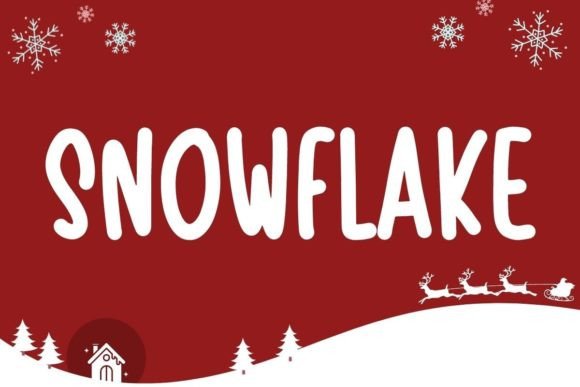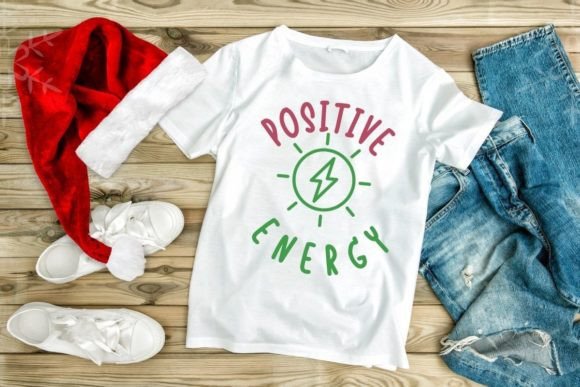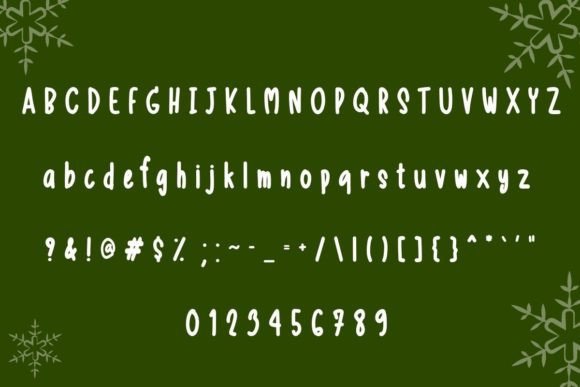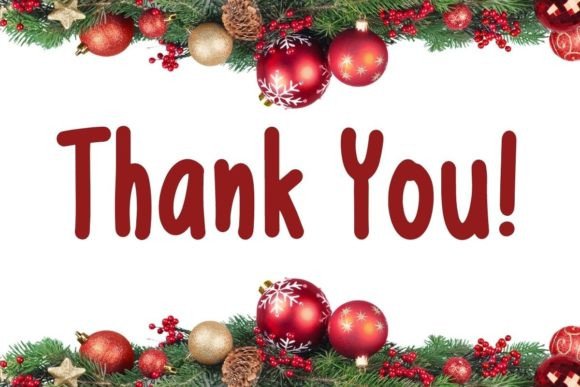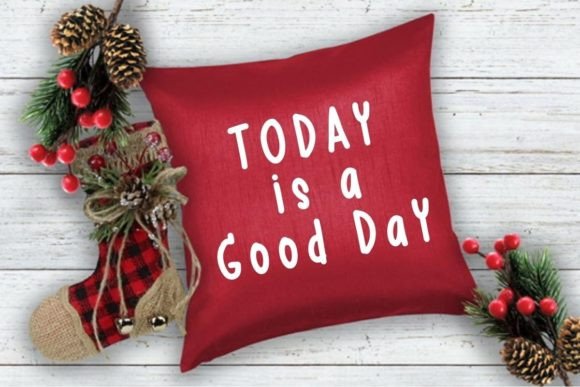
Snowflake Font Download – Bold Cute Hand-Drawn Script
The Snowflake Font download is a bold and cute hand-drawn typeface that brings creativity, fun, and personality to your projects. With its thick strokes and charming design, this font is perfect for posters, banners, covers, and advertising materials. Snowflake is crafted to make your text stand out while maintaining a playful and approachable style.
A Bold and Cute Hand-Drawn Style
The Snowflake Font download features thick, rounded strokes that give it a hand-crafted look. Its bold appearance makes it ideal for designs that require visibility, while its cute character ensures a friendly and joyful touch.
Perfect for Posters and Banners
The Snowflake Font download is a natural fit for posters, banners, and event promotions. Its bold strokes ensure text captures attention, while its hand-drawn feel adds warmth and authenticity to your designs.
Great for Advertising and Covers
From advertising materials to book or magazine covers, the Snowflake Font download helps your projects stand out. Its bold yet playful energy makes it versatile enough to appeal to both formal and casual audiences.
The Snowflake Font download adapts well to social media graphics, product packaging, and branding. Its hand-drawn style adds uniqueness, ensuring your designs feel original and engaging.
Readability with Playful Strength
Some bold fonts lose readability, but the Snowflake Font download maintains clarity thanks to its balanced structure. Its thick strokes keep your message clear, making it perfect for both large and medium-sized text.
Why Choose Snowflake Font?
Among hand-drawn typefaces, the SnowflakeFont download stands out for its boldness, cuteness, and versatility. It’s designed to bring life to posters, banners, and creative branding projects, making it a must-have for designers.
Add Bold Creativity to Your Designs
Typography sets the mood of your work, and the SnowflakeFont download ensures your projects feel bold, joyful, and eye-catching. Whether for covers, banners, or ads, this font helps your designs sparkle with personality.